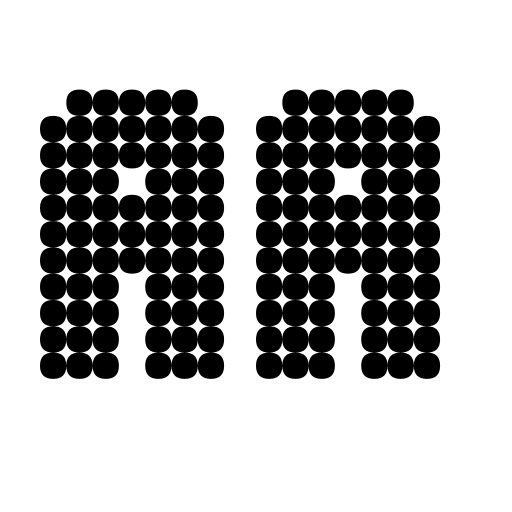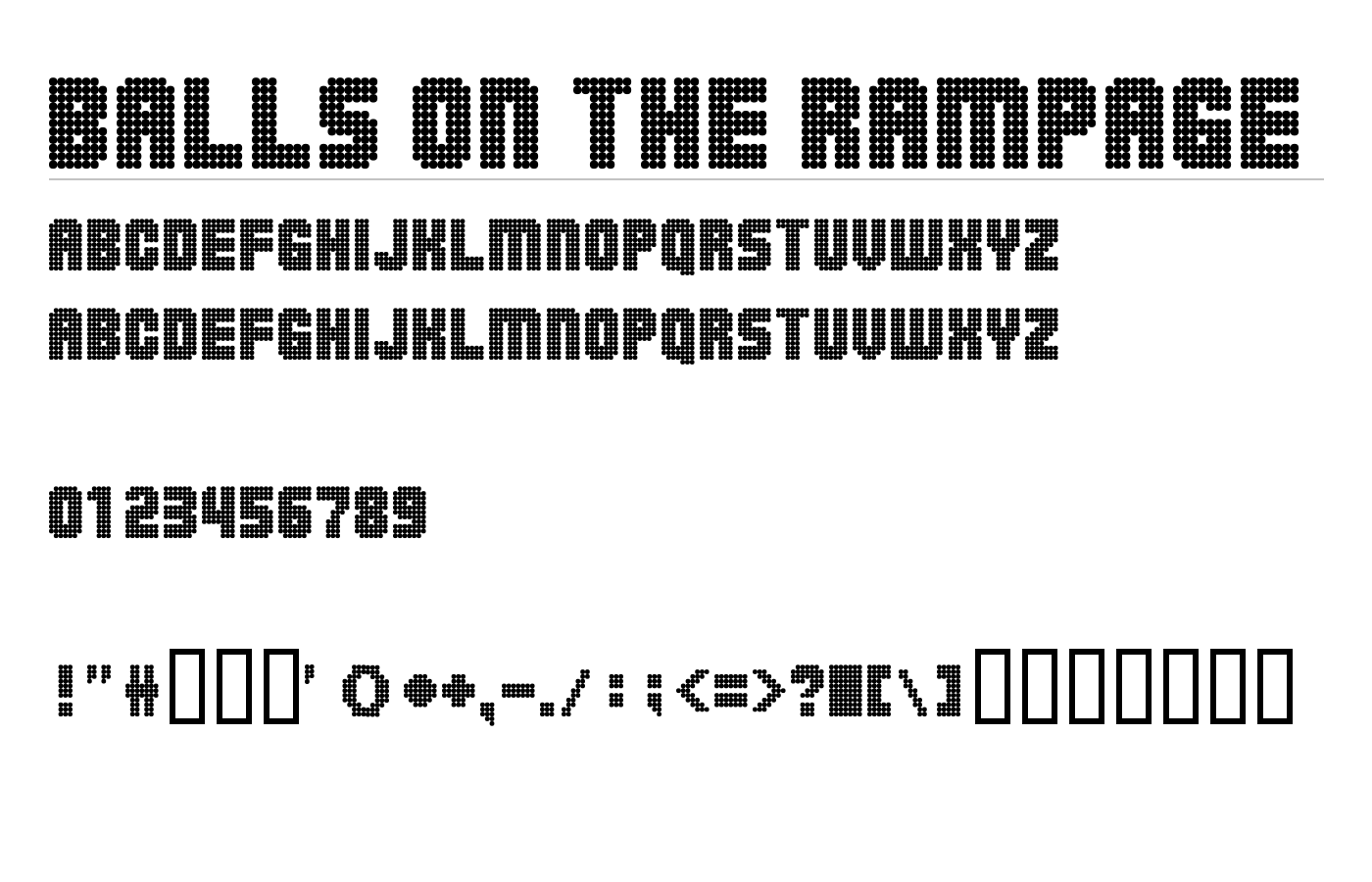
Balls on the rampage is a bold, playful display font characterized by its unique dotted pattern forming blocky, all-caps letters that feel energetic and modern. Its pixel-like dots give it a digital, tech-inspired vibe, making it perfect for eye-catching headlines, posters, or branding that seeks a fun, retro-futuristic look. This font works best where impactful, standout text is needed, adding personality and a sense of excitement to creative projects.
Balls on the rampage Font
About Balls on the rampage Font